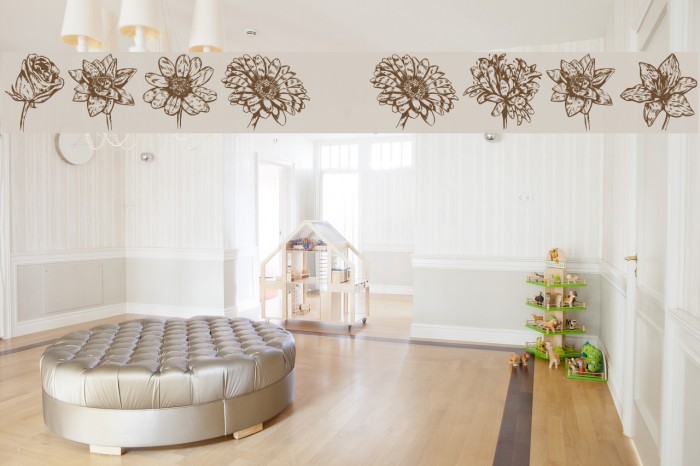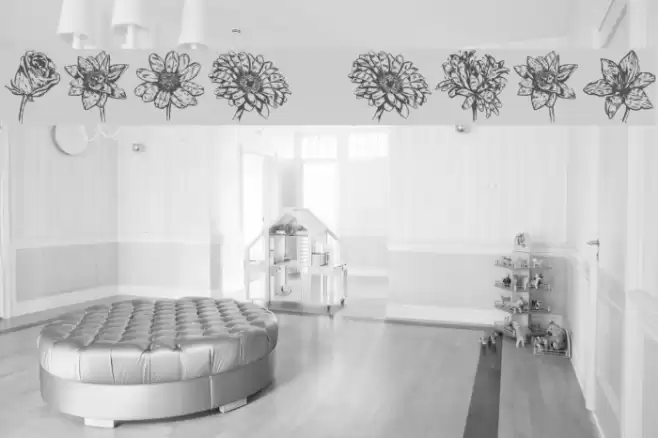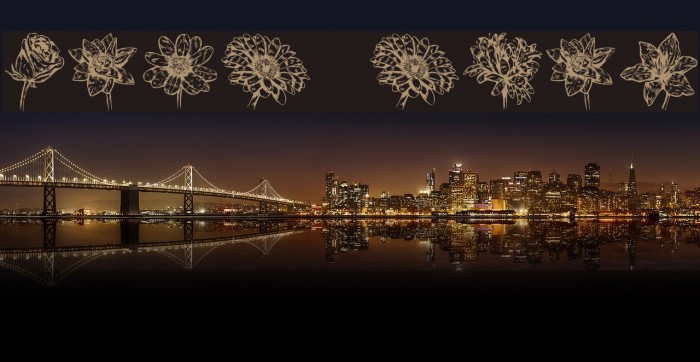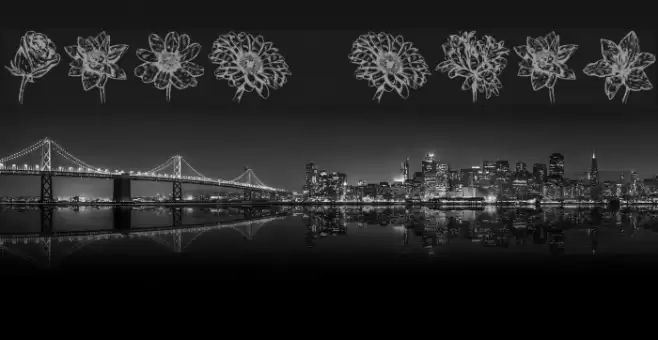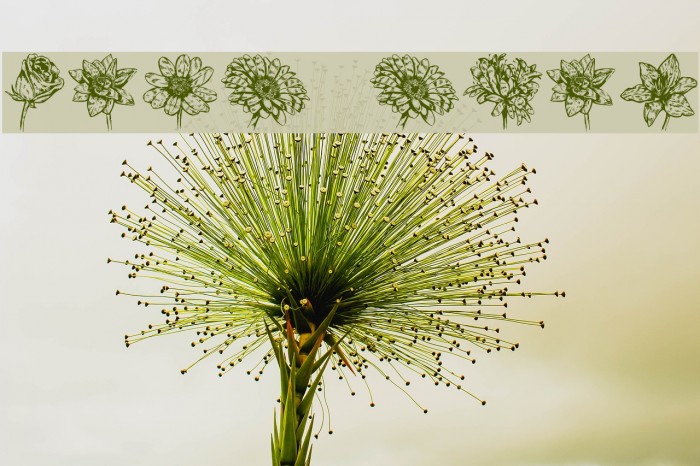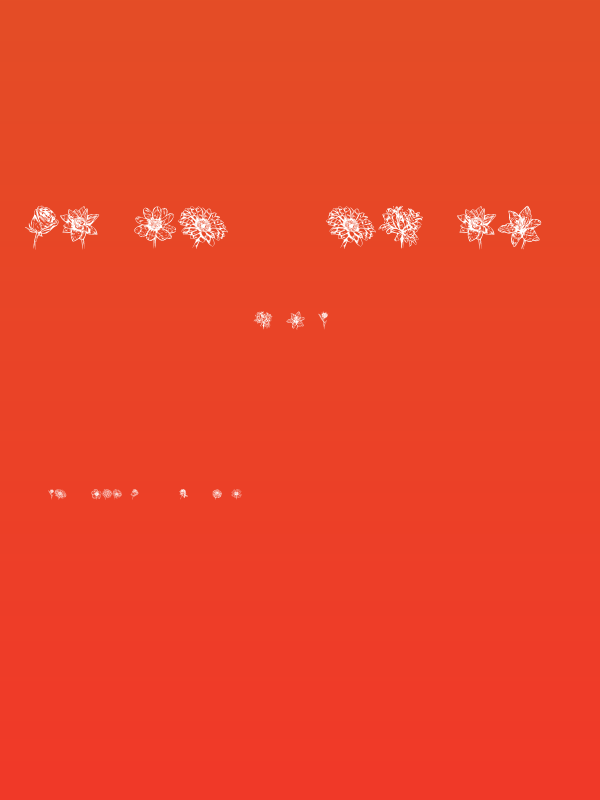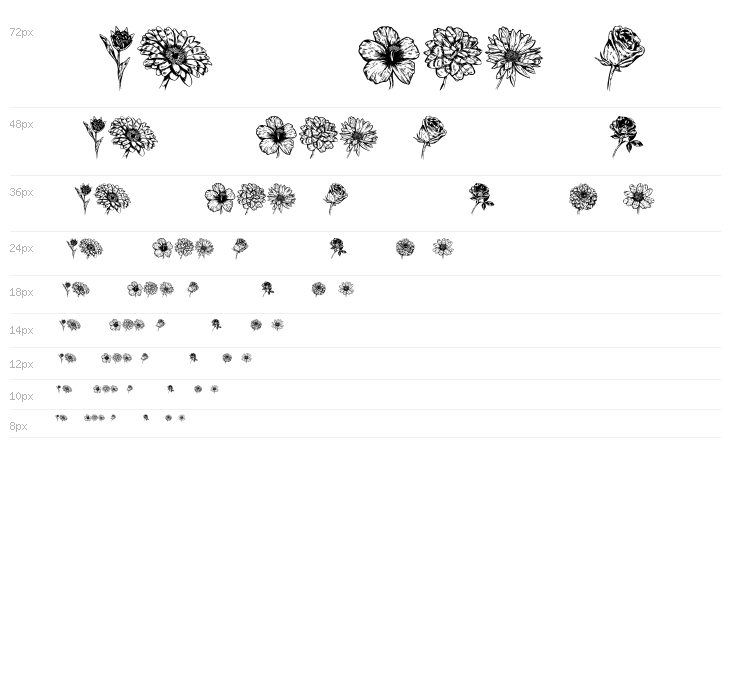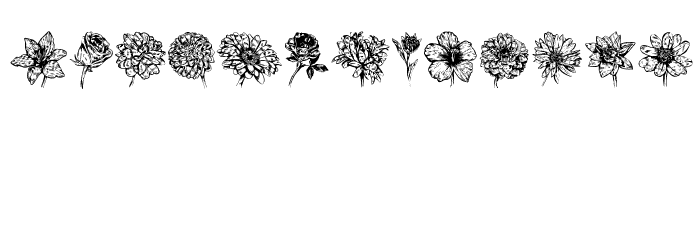
Blumen Regular Font
Blumen Regular Description
A decorative dingbat font featuring detailed, hand-drawn floral illustrations for each character, with intricate linework and organic shapes.
Overall StyleDecorative, Botanical, Hand-drawn
Use CaseDecorative elements, Borders, Themed graphics
Proposed ProjectsInvitations, greeting cards, decorative borders, scrapbooking, botanical-themed designs.